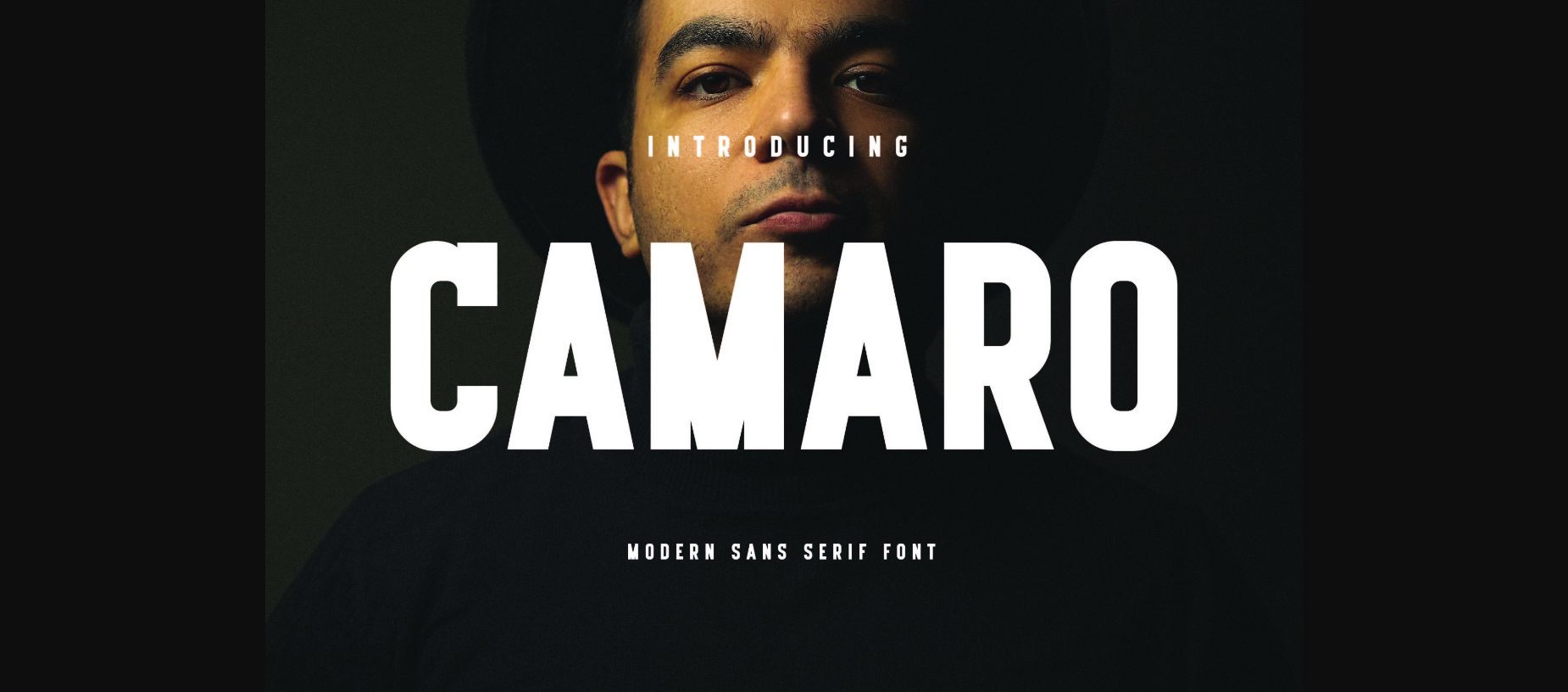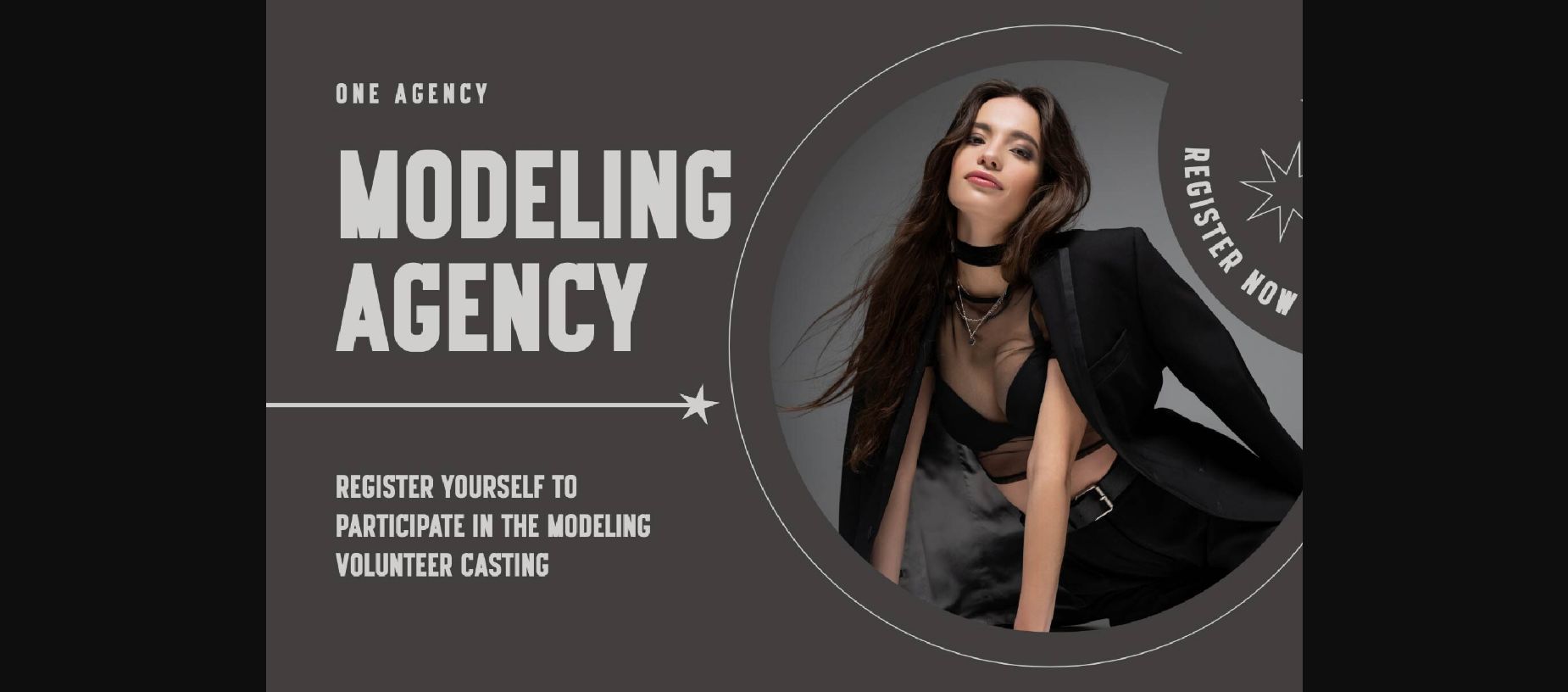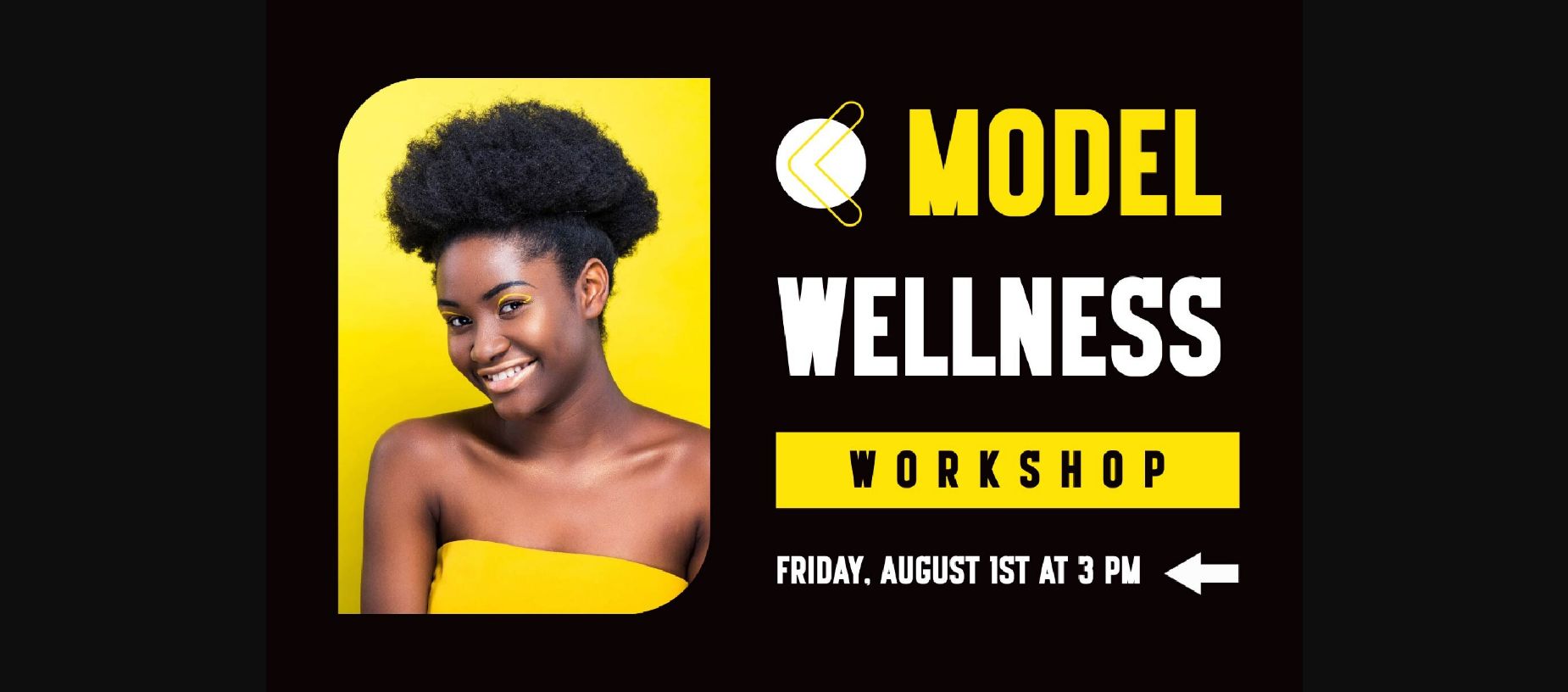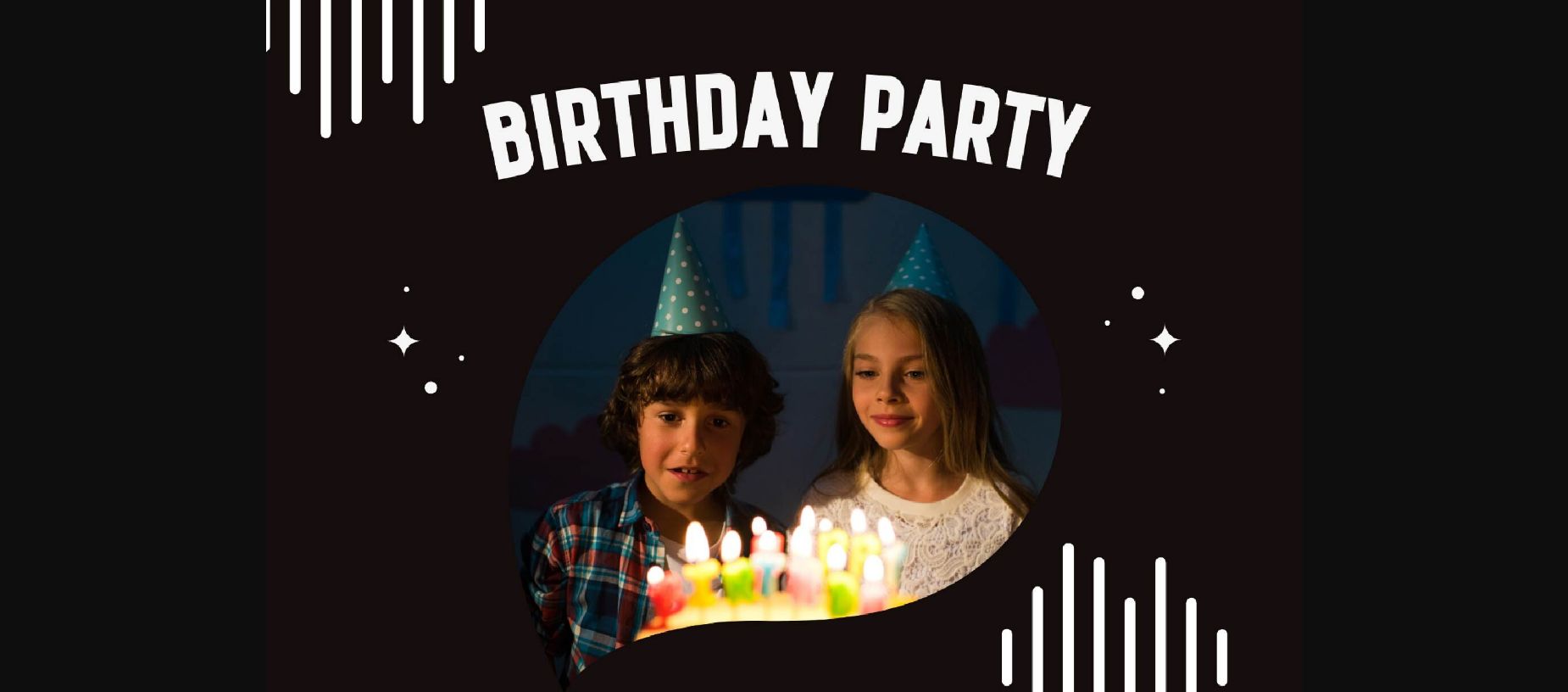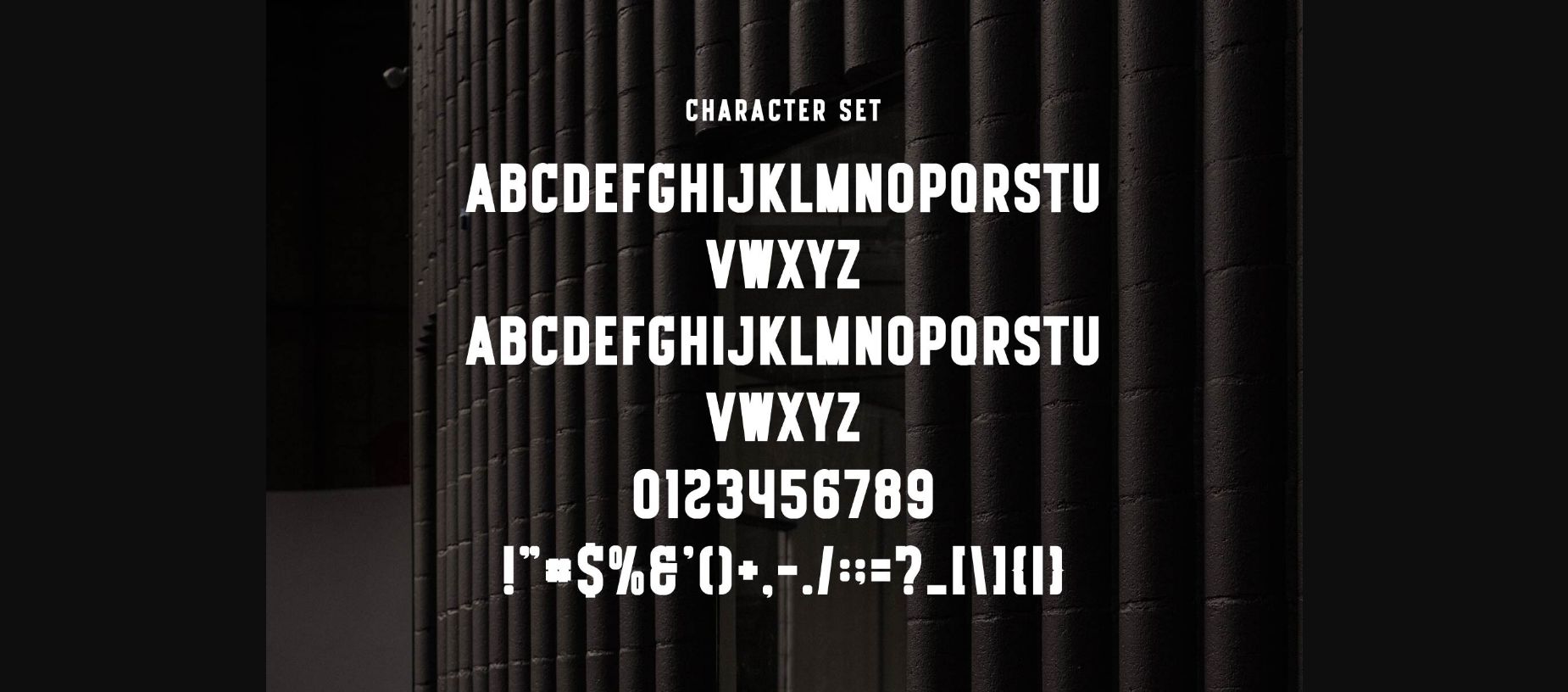
HomeSans Serif FontsCamaro Font Sans Serif Fonts Camaro Font FacebookXPinterestWhatsApp 1 of 7 ... Camaro Font Poster 2... Camaro Font Poster 3... Camaro Font Poster 4... Camaro Font Poster 5... Camaro Font Poster 6... Camaro Font Poster 7... About Camaro Font Camaro is an elegant and modern sans serif font. This minimalist and clean vibe can easily apply to your favorite designs such as book covers, magazines, social media posts, invitations, and so more! DOWNLOAD NOW People also explored Dinosaur Font One Trick Pony The Sun Font Lylia Font Winter Yesterday Font Vasaggy Font Stylish Font Extended Font Beatrice Cynthia Font 353 0 TagsCamaroCamaro Font Previous articleSekar FontNext articleBadra Font LEAVE A REPLY Cancel reply Comment: Please enter your comment! Name:* Please enter your name here Email:* You have entered an incorrect email address! Please enter your email address here Website: Save my name, email, and website in this browser for the next time I comment. Personal Use Free Vexler Slip Personal Use Free Read more about this font Lovetle Personal Use Free Read more about this font Makeba Font Personal Use Free Read more about this font Girl Personal Use Free Read more about this font BLOG Free Fonts Risk: Why Free Fonts Can Be Dangerous for Designers Free Fonts Risk: Why Free Fonts Can Be Dangerous for Designers Using free fonts is a common practice in web and graphic design. However, the... 5 Fonts That Will Dominate Design Trends in 2026 Top 10 Handwritten Fonts That Elevate Your Designs Exploring Font Trends